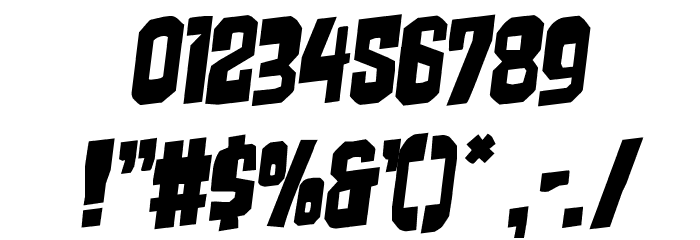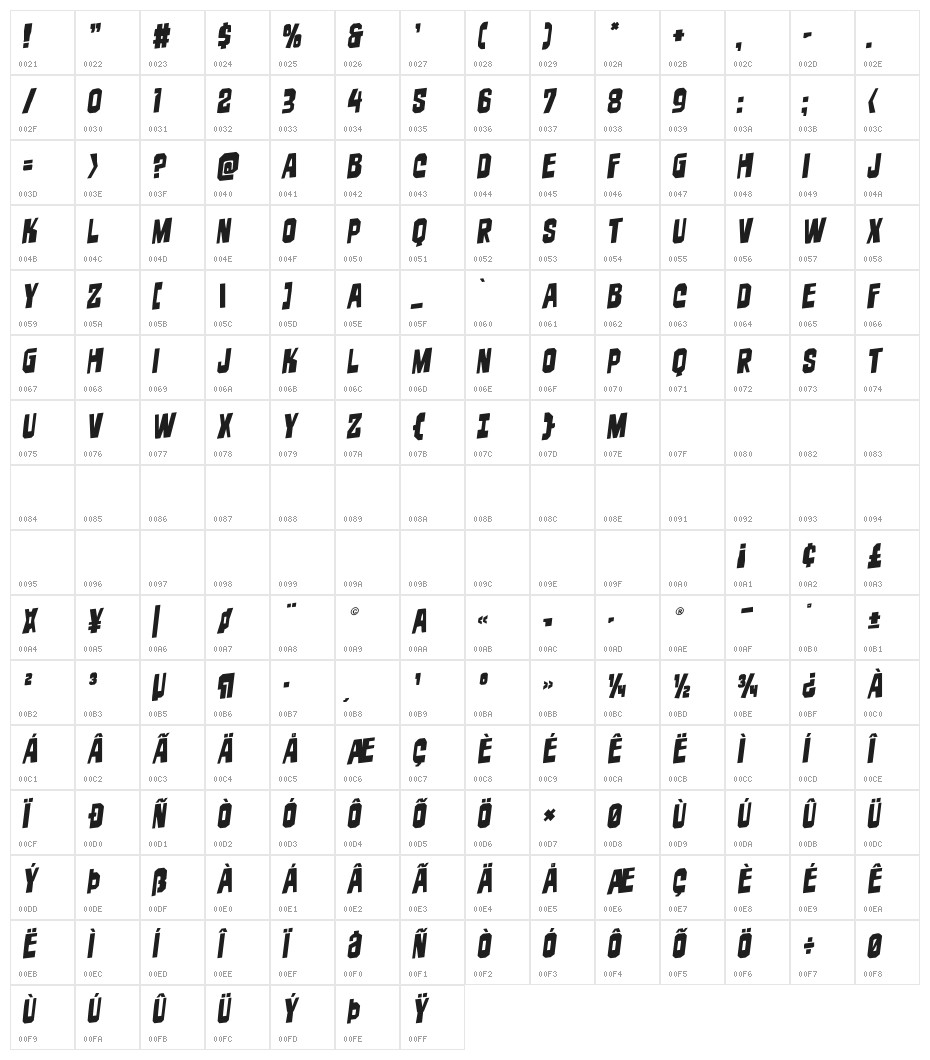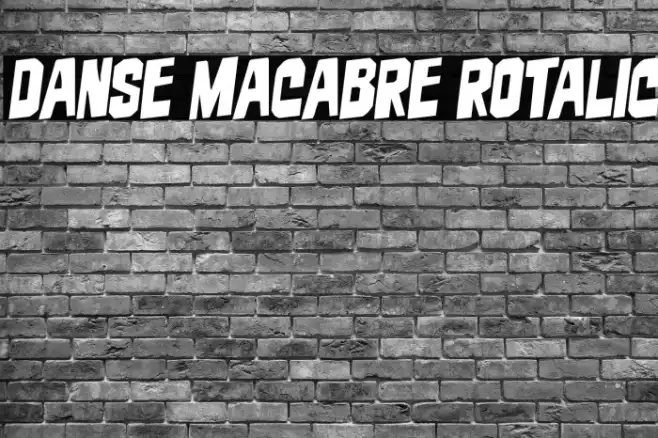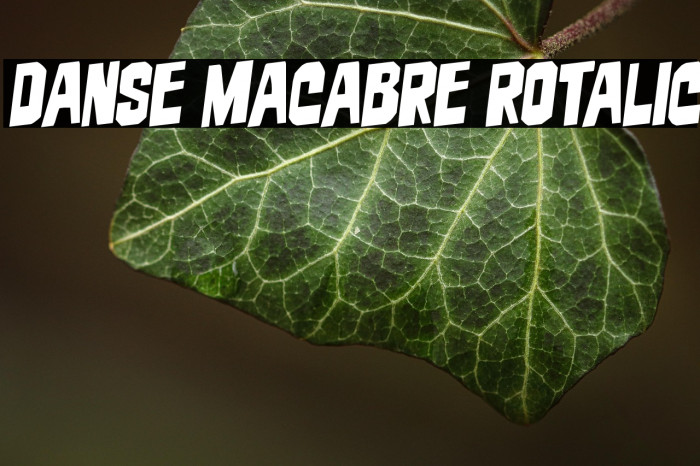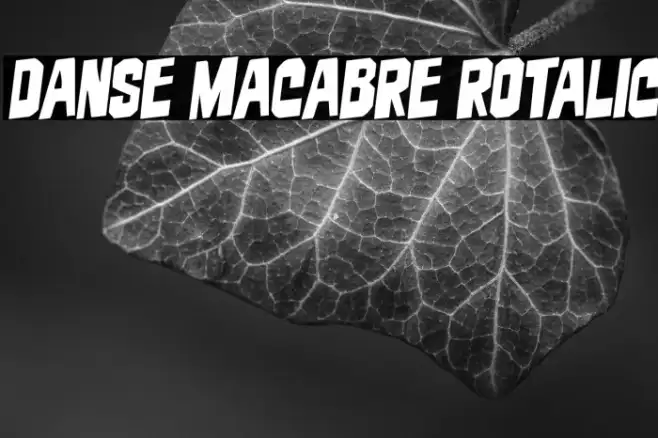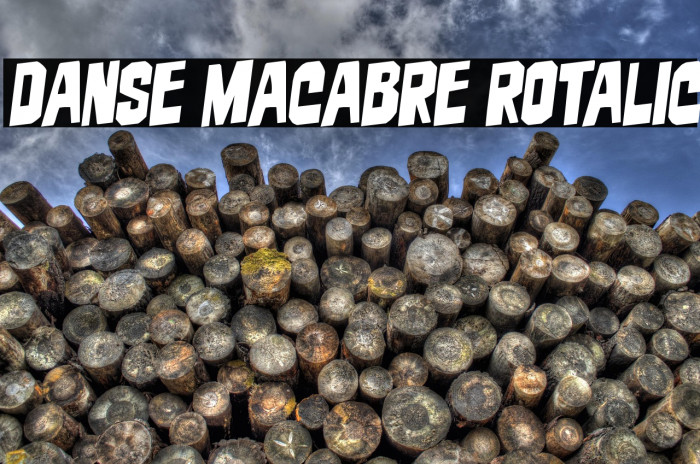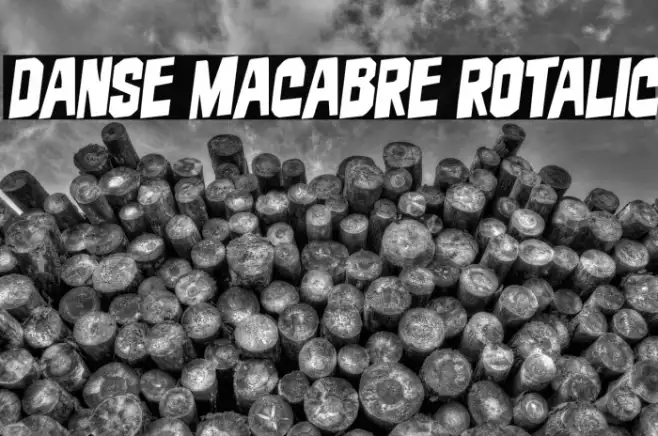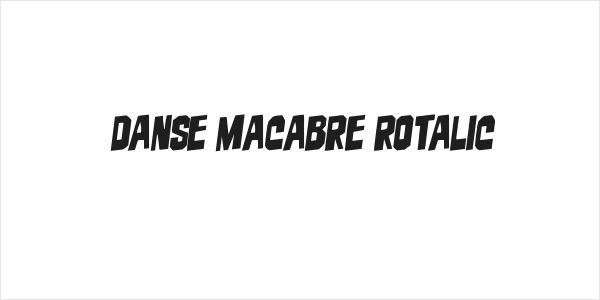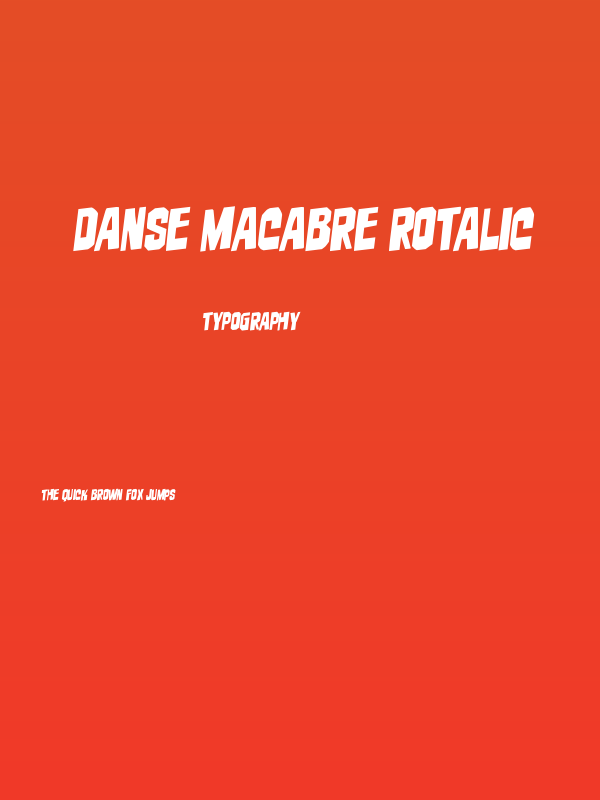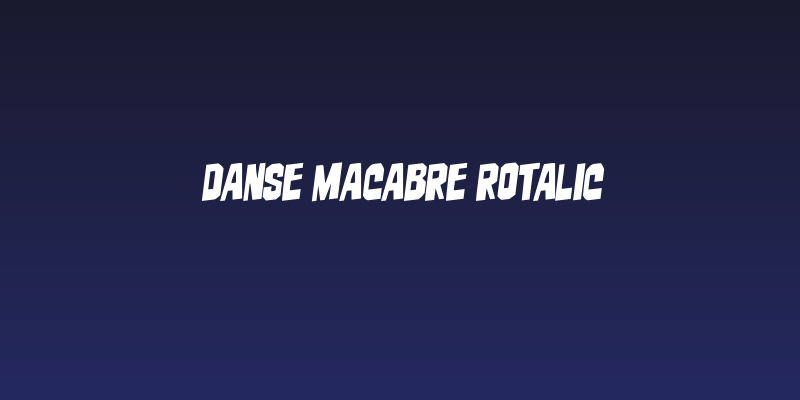
Danse Macabre Rotalic Font
Danse Macabre Rotalic Description
This font features a bold and dynamic style with a distinct slant, giving it a sense of movement and energy. The characters are heavily stylized with sharp angles and thick strokes, creating a strong visual impact. The uppercase and lowercase letters maintain a consistent design, while the numerals and special characters complement the overall aesthetic. The font's unique appearance makes it suitable for projects that require a bold and eye-catching typeface.
| Proposed Projects | Ideal for posters, album covers, video game graphics, and branding that demands attention. |